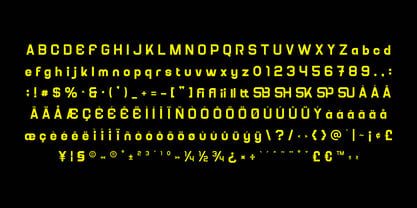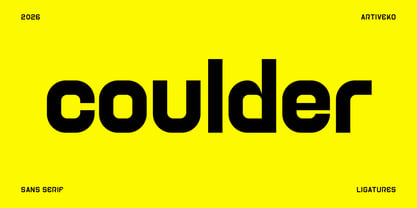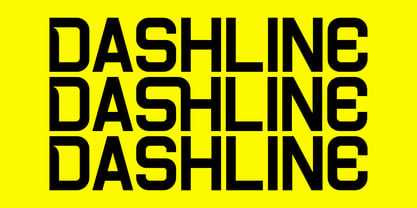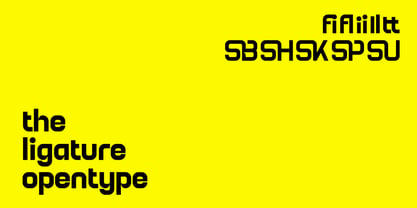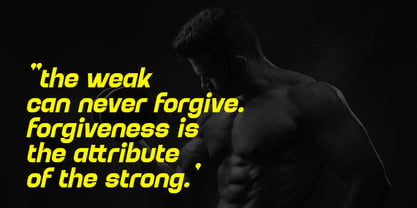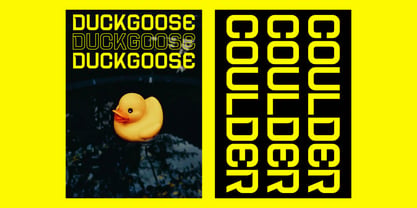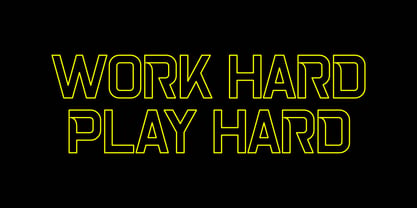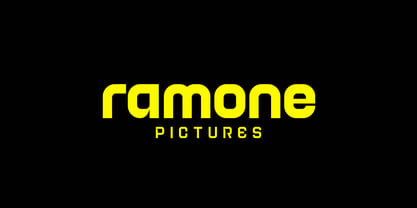
Coulder
by Artiveko
The Coulder Font Family was designed by Iwan Alwan and published by Artiveko. Coulder contains 2 styles and family package options. More about this family
Coulder is a modern creative sans serif typeface designed to infuse fresh energy and clarity into contemporary design. Featuring a clean structure, balanced proportions, and subtle character details, Coulder strikes the perfect balance between professionalism and creative flair. This font excels in various applications, including branding, logos, visual identity, packaging, posters, social media graphics, and modern digital design. Its versatile style empowers designers to craft bold headlines, clean layouts, and distinctive brand visuals effortlessly. Whether utilized for creative studios, startups, lifestyle brands, or marketing campaigns, Coulder provides a confident and modern typographic voice that stands out across both print and digital platforms. More than just a font, Coulder is a creative tool for modern visual storytelling.
Designers: Iwan Alwan
Current Foundry: Artiveko